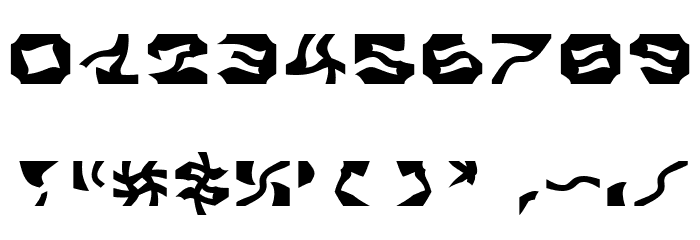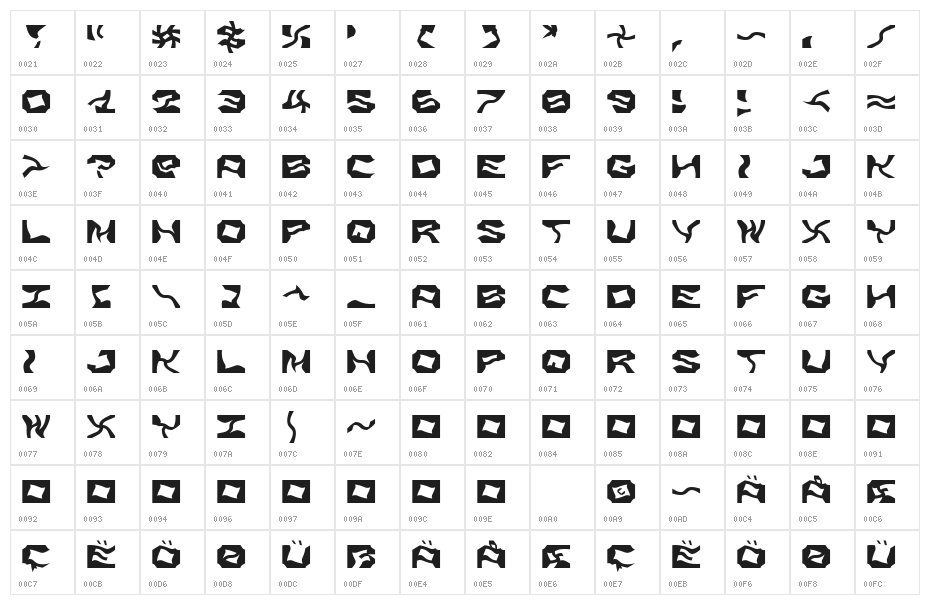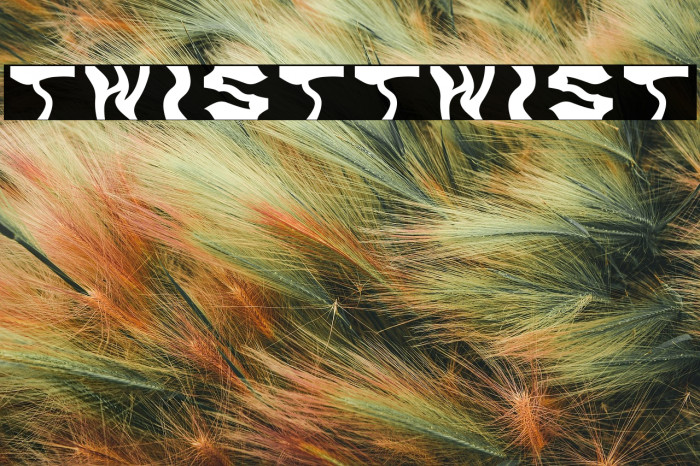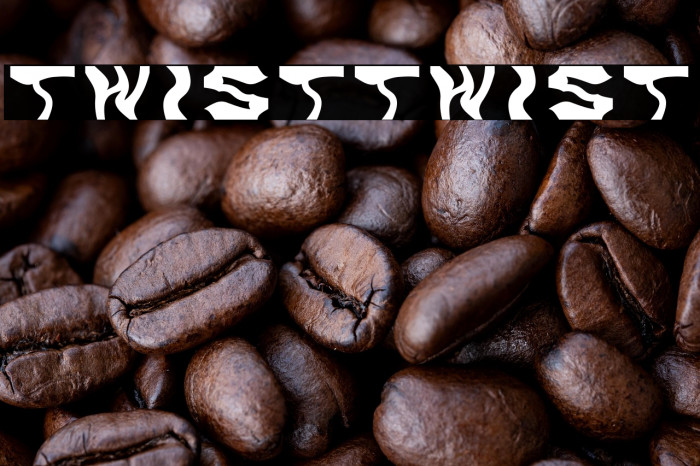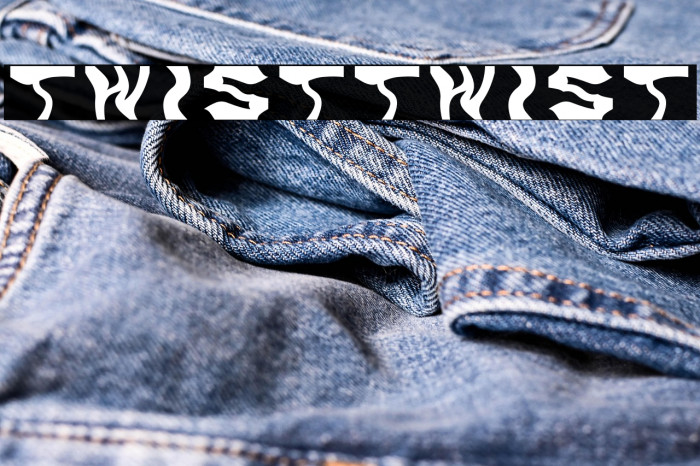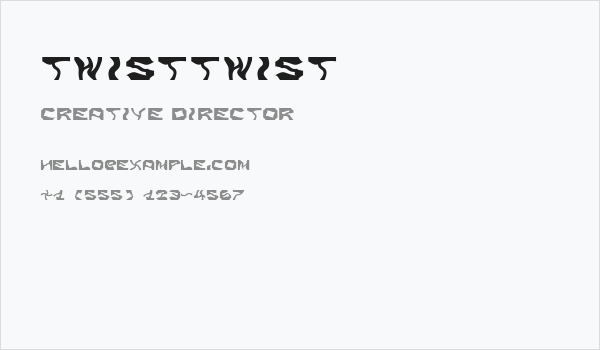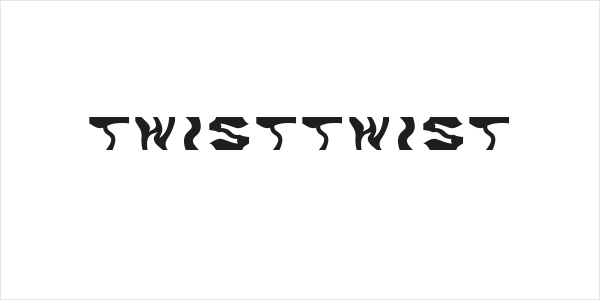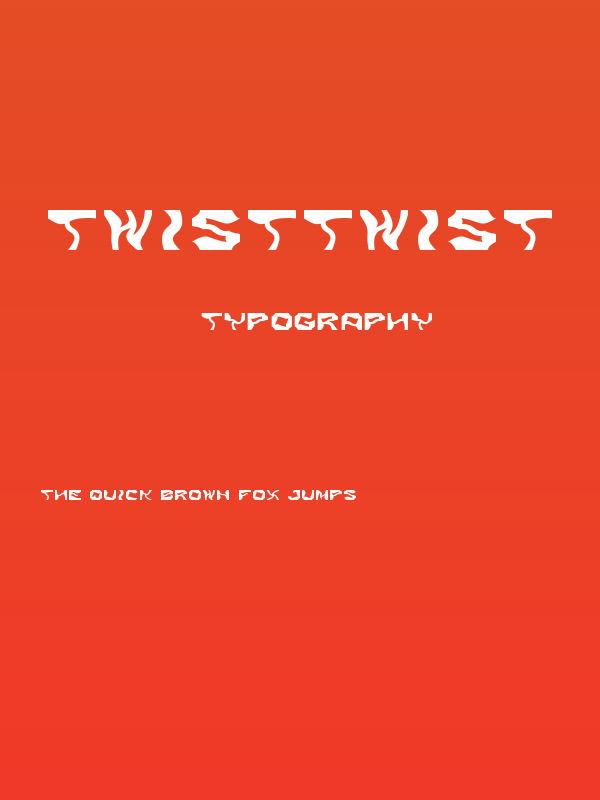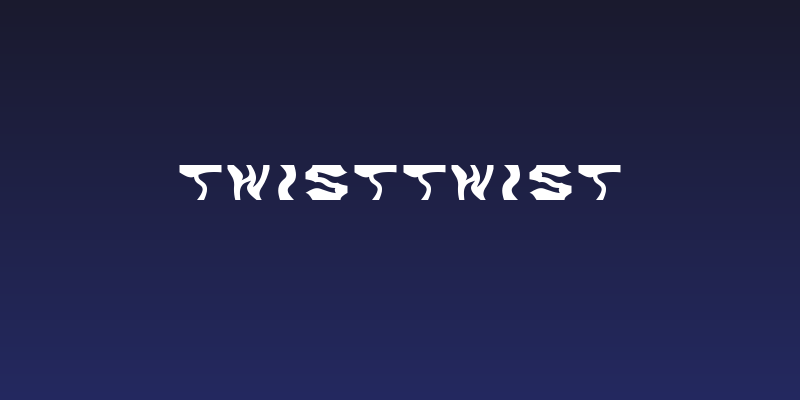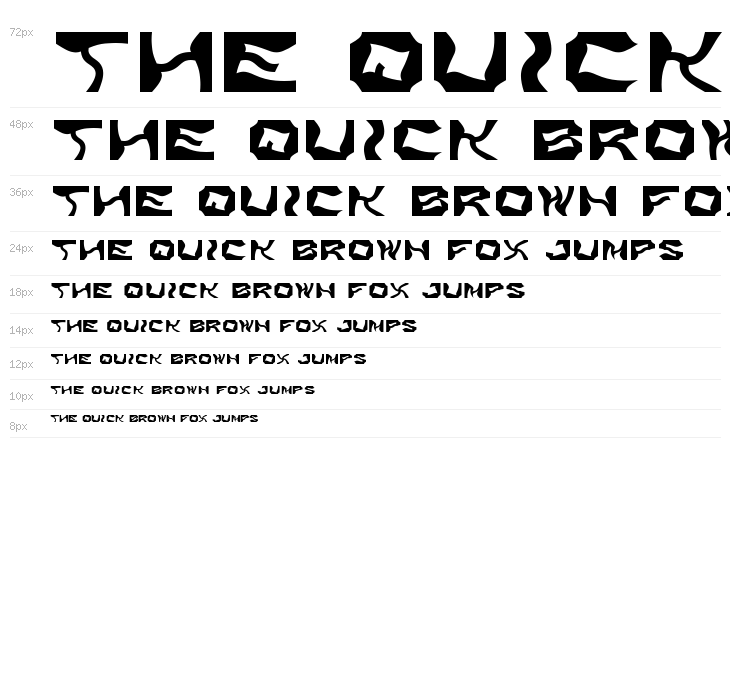
TwistTwist Font
TwistTwist Description
This font features a bold and dynamic design with a unique twist in each character, creating a sense of movement and energy. The angular shapes and sharp edges give it a modern and edgy appearance, making it stand out in any design. The uppercase and lowercase letters maintain a consistent style, while the numbers and special characters are equally distinctive. The font's boldness and geometric forms make it suitable for eye-catching headlines and creative projects.
| Proposed Projects | Ideal for branding, posters, album covers, and any project requiring a striking and modern aesthetic. |